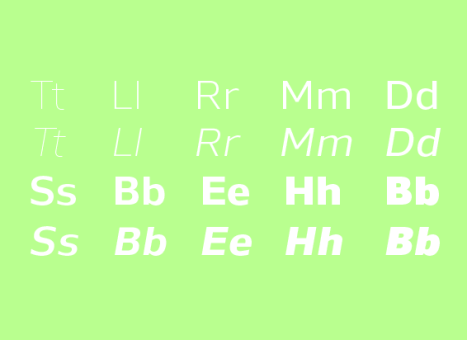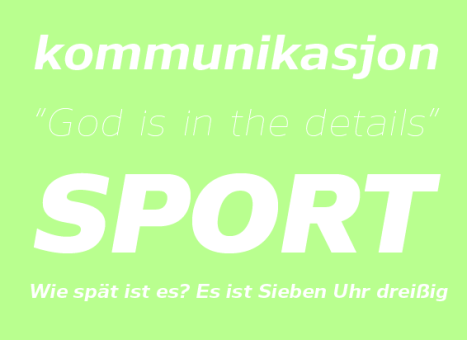
Nauman
A modern humanist sans serif made for the screen. Broad open letter forms are combined with precise geometry to create a functional and legible font that’s ideally suited to the web and on-screen applications. To reinforce readability and create more distinction at small point sizes serif like details have been drawn into uppercase ‘I’, ‘J’ and lowercase ‘i’ and ‘j’. Other characters of distinction include a serifed number 1 and a crossed out zero. Nauman is a highly legible font family aimed at large interface based projects. Details include over 800 characters with alternative lowercase a, e, I and M. 7 variations of numerals, true small caps with accents, manually edited kerning and Opentype features.